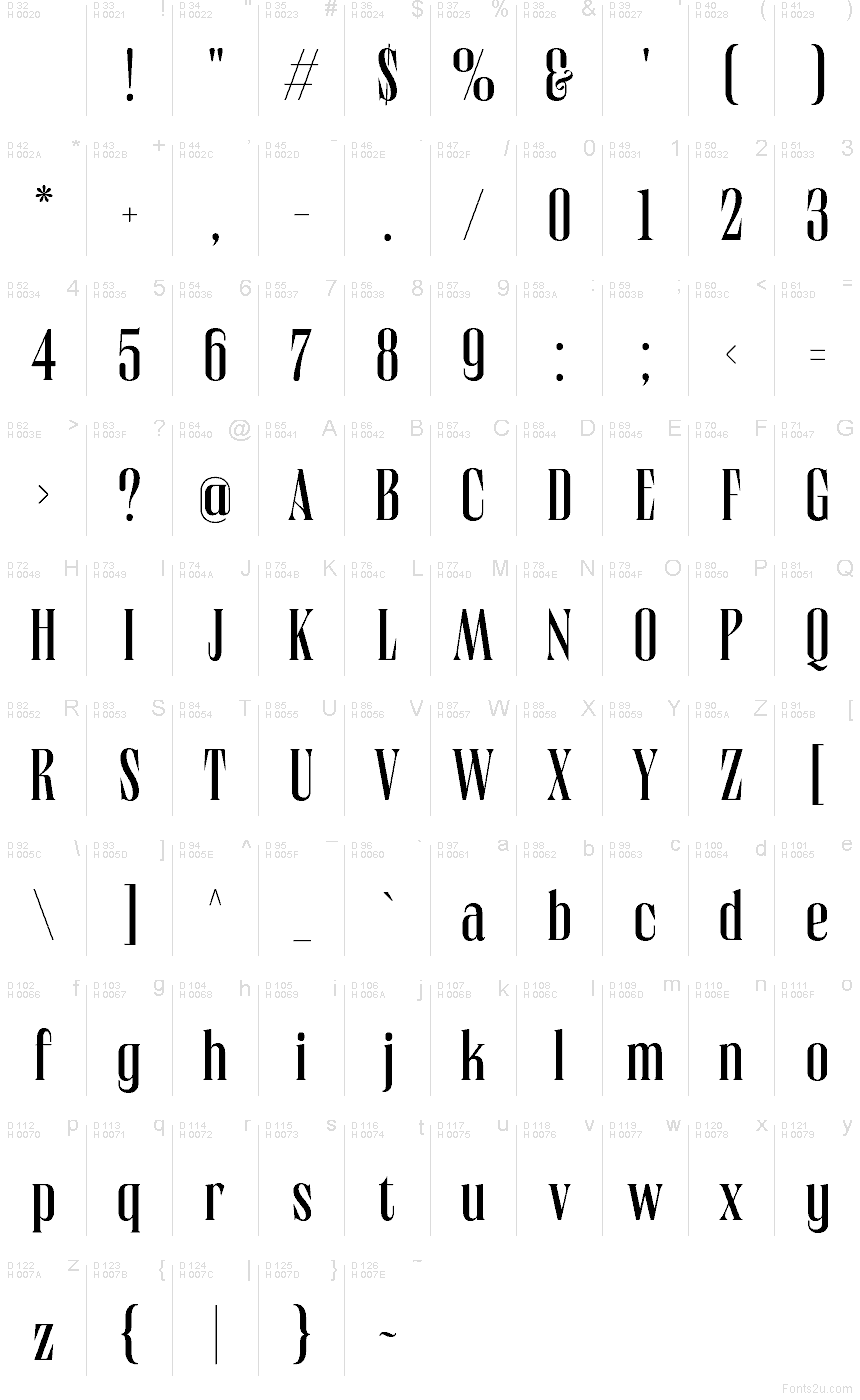
JHCAudemars-Medium
JHC Audemars Medium by Jehoo Creative is a free high-contrast modern serif with a fashion-editorial mood. The letters feel tall and poised, pairing hairline details with broad vertical strokes, while the curved forms and tapered feet give it a slightly dramatic, couture-flavored rhythm.
It fits branding, magazine covers, luxury packaging, beauty campaigns, and restaurant menus where a name needs polish more than noise. As a free font, it also works well for title cards, monograms, and short headline settings, because those long elegant proportions and sharp contrast give even a few letters a dressed-up presence.